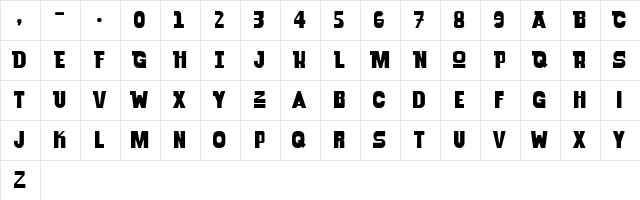
Rocket Thunder-DEMO Regular
Foundry: Scratch Design
Designer: Karma Ganda
Design Context for Rocket Thunder-DEMO
Rocket Thunder-DEMO is a composed and adaptable typeface that performs quietly and consistently across a wide range of design contexts.
Pro Tip: Use Rocket Thunder-DEMO in both headline and body roles to test its range before committing to a single application.